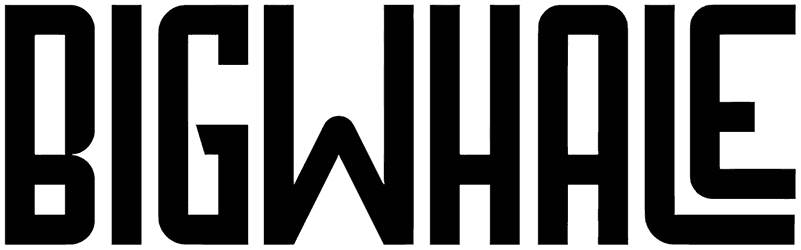
Bigwhale Font
Go with a condensed font and draw all attention to your text design! Bigwhale brings a positive vibe and fits comic books, menus, titles, and many other things. It’s featuring tall and semi-bold characters but remember i…
Go with a condensed font and draw all attention to your text design! Bigwhale brings a positive vibe and fits comic books, menus, titles, and many other things. It’s featuring tall and semi-bold characters but remember it lacks lowercase letters. If you haven’t recently checked RB, do it now and select between thousands of freebies.
BigWhale Display Condesed Font
Bigwhale is a condensed display font. This font is perfect for use in titles with a set of numbers, basic symbols and punctuation, for the letter W has an alternative character. This font also has some bandages for some sets of letters for further customization of your designs.